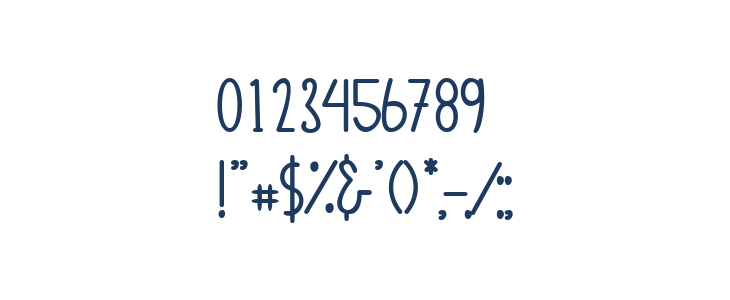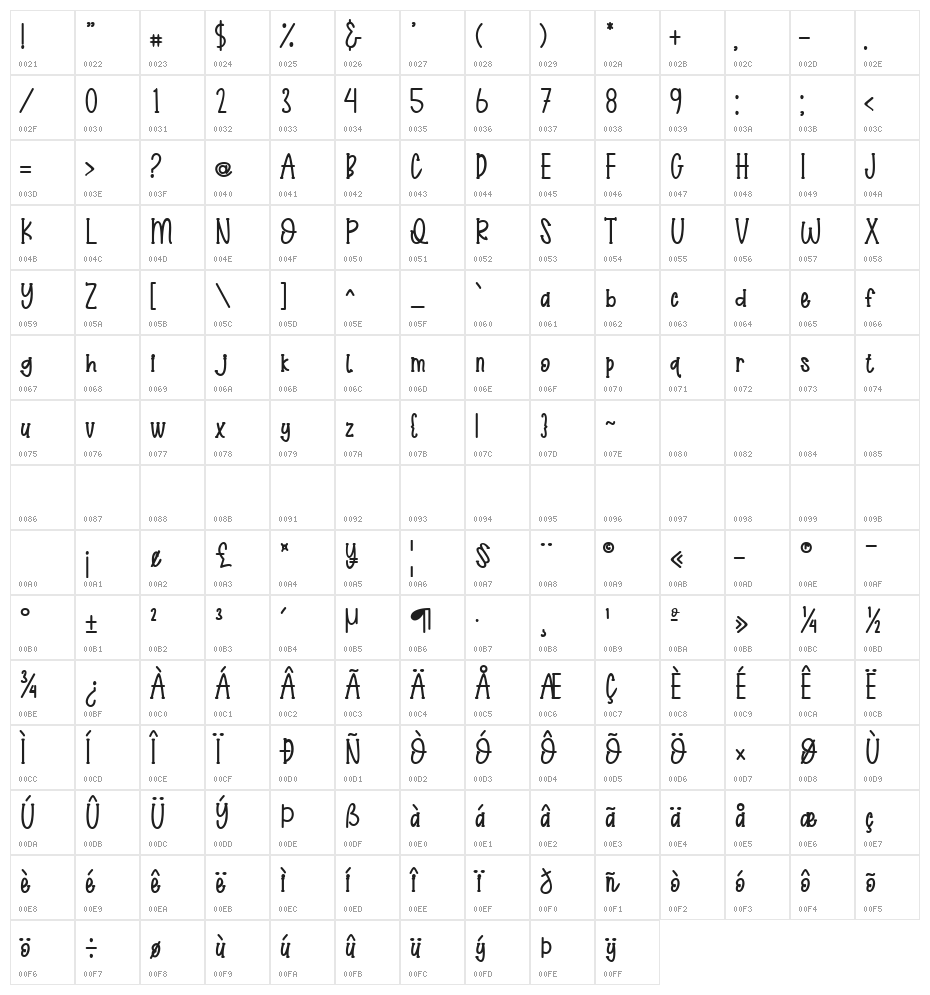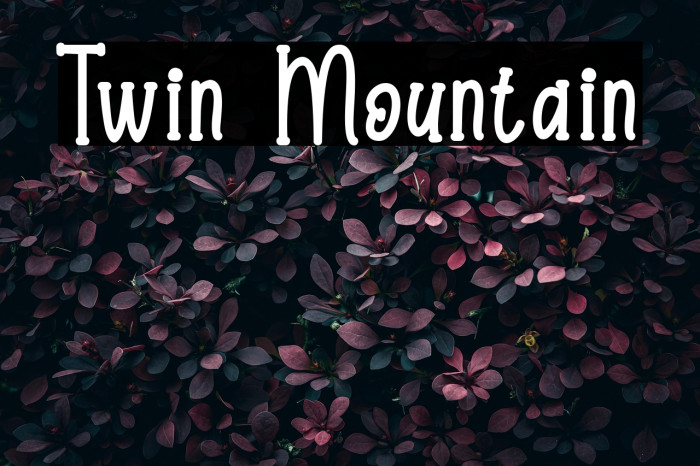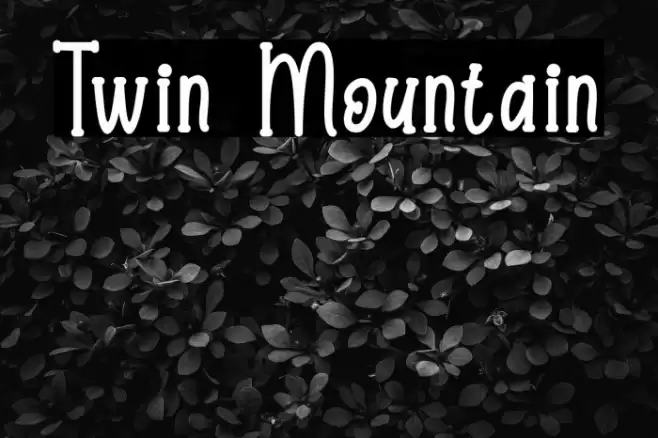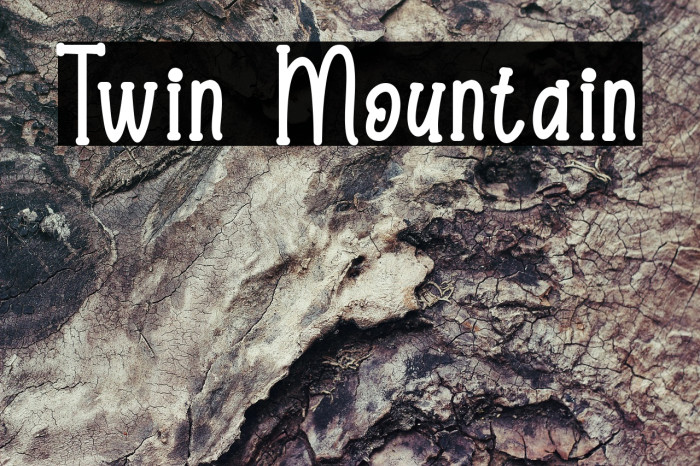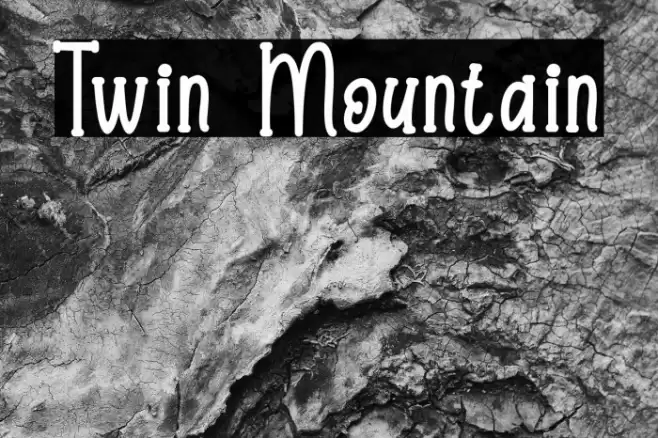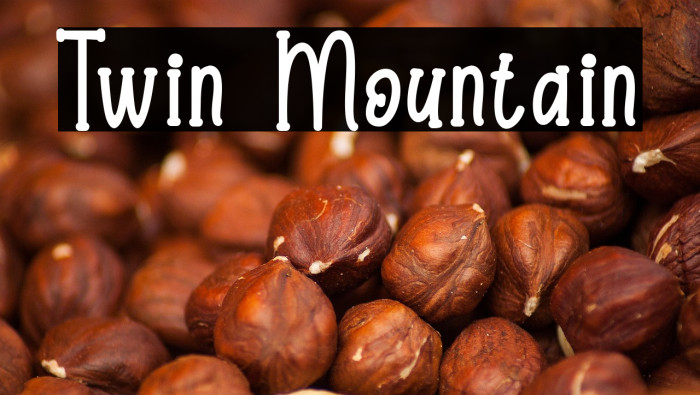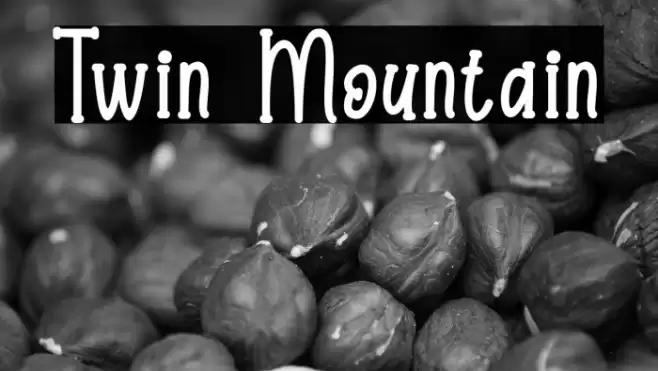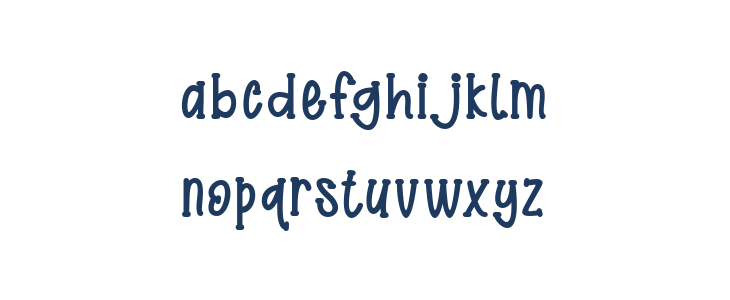
Twin Mountain Font
Twin Mountain Description
This font features a playful and whimsical style with a handwritten appearance. The characters are slightly irregular, giving it a casual and friendly feel. The uppercase and lowercase letters maintain a consistent flow, with rounded edges and a slight slant that adds to its charm. The numerals and special characters are designed to match the overall aesthetic, making it versatile for various creative projects. The font's unique personality makes it suitable for informal and fun designs.
| Proposed Projects | Ideal for children's books, greeting cards, playful branding, and casual invitations. |